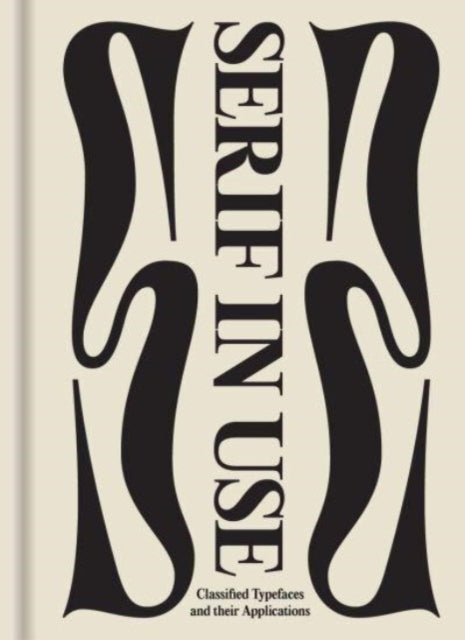
Serif in Use: A Collection of Serif Typefaces
Sans in Use and Serif in Use showcase creative pairings and ingenious applications of serif and sans serif typefaces, inspiring type designers and lovers. They collate the best combinations and serve as a reference point for inspiration.
Sans in Use and Serif in Use are two comprehensive books that showcase the creative pairings and ingenious applications of serif and sans serif typefaces. These books serve as a valuable reference point for both type designers and type lovers, providing insight into the world of typography and inspiring designers to push the boundaries of their craft.
In the world of typography, it is not uncommon to see combinations of serif and sans serif typefaces in the same design. However, it takes skill to combine them in order to avoid tension and clashes, and ensure maximum readability of the text in the design. From font weights to classifications, each font has its own distinct personality, and should be carefully paired to convey the right tone and mood of the design.
Featuring a selection of type specimens, their design applications, and the thoughts that go behind the craft, Sans in Use / Serif in Use collates the best combinations of the two typeface categories and serves as a reference point for inspiration-seeking designers and typographers alike.
Sans in Use explores the versatility and aesthetic appeal of sans serif typefaces, showcasing their ability to convey modernism, simplicity, and efficiency. The book features a wide range of examples from various industries, including advertising, branding, and web design, demonstrating how sans serifs can be used to create powerful and memorable designs.
On the other hand, Serif in Use delves into the history, character, and elegance of serif typefaces. The book showcases a selection of classic and contemporary serif fonts, providing insight into their design characteristics and how they can be used to create a sense of tradition, sophistication, and authority. Serif in Use also includes examples of serif fonts in various design applications, such as book design, editorial design, and advertising.
Both Sans in Use and Serif in Use are beautifully designed books that feature stunning typography and illustrations. The books are organized in a clear and concise manner, making it easy for readers to navigate and find the information they need. Each chapter is accompanied by detailed explanations and examples, providing a deeper understanding of the topics covered.
In addition to their visual appeal, Sans in Use and Serif in Use are also valuable resources for type designers and typographers. The books offer insights into the creative process behind typeface design, as well as practical tips and techniques for creating successful combinations of serif and sans serif typefaces. The books also provide a wealth of inspiration for designers looking to push the boundaries of their craft and create unique and innovative designs.
In conclusion, Sans in Use and Serif in Use are two must-read books for anyone interested in typography and design. These books showcase the creative pairings and ingenious applications of serif and sans serif typefaces, providing a valuable reference point for inspiration-seeking designers and typographers alike. Whether you are a professional designer or just a typography enthusiast, these books will help you deepen your understanding of the world of typography and inspire you to create beautiful and effective designs.